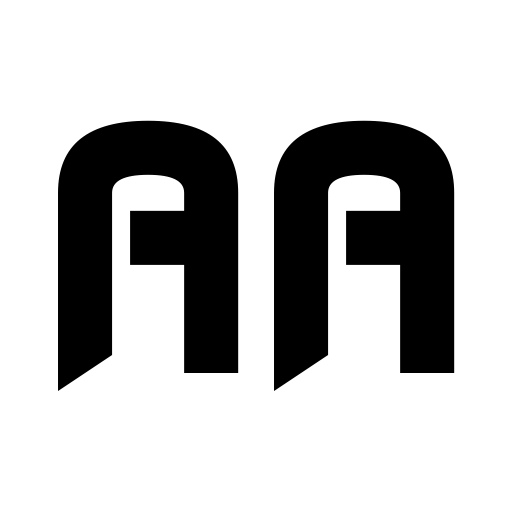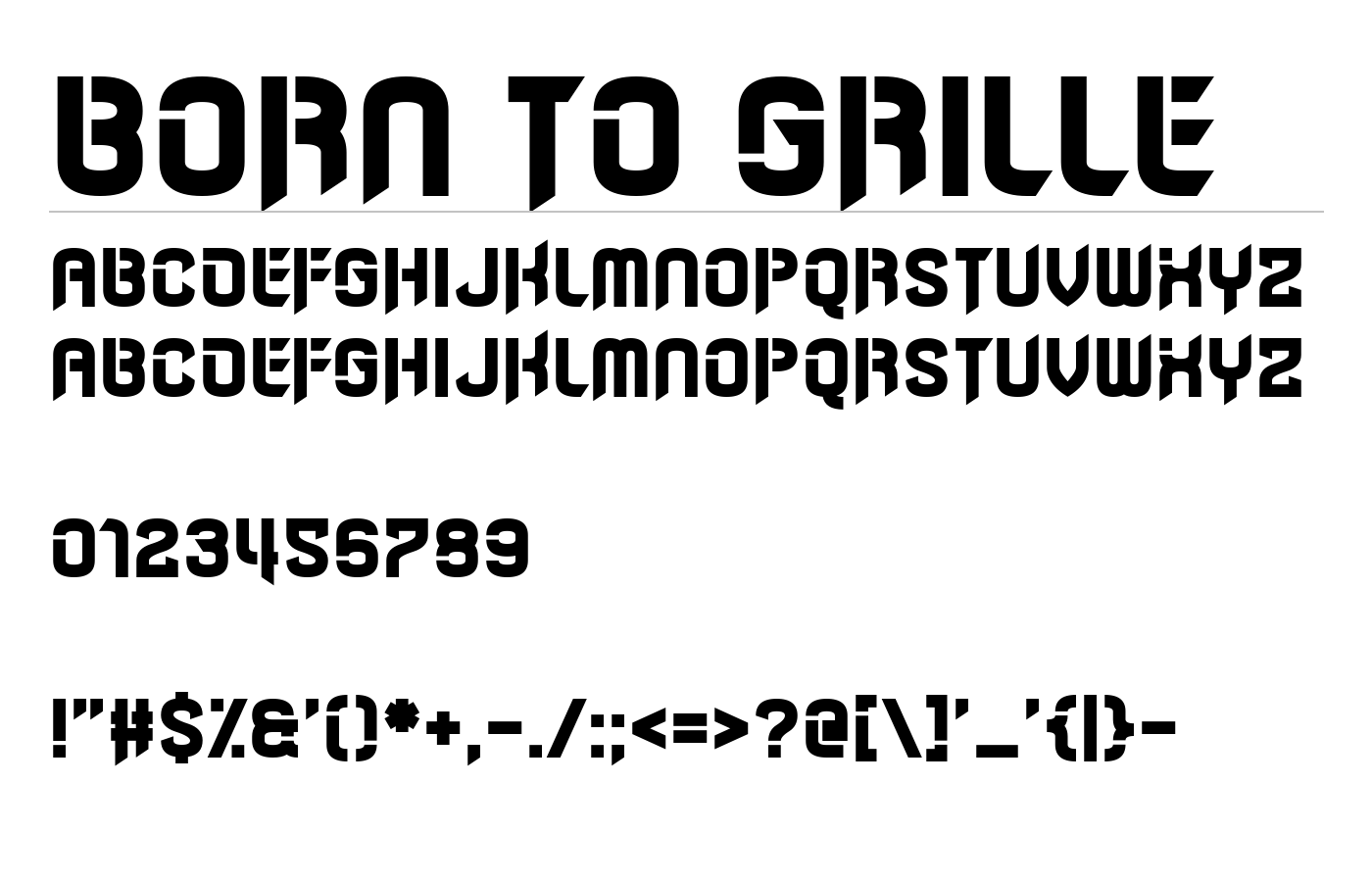
Born to Grille is a bold, condensed sans serif font with a futuristic and industrial vibe, characterized by sharp angles and distinctive cut-out details that give it a strong, edgy personality. Its uppercase-only design and high contrast shapes make it ideal for striking headlines, logos, and branding where a modern, assertive look is desired. This font works well for projects wanting to convey innovation, strength, and a forward-thinking style.
Born to Grille Font
About Born to Grille Font
| Designer | Allison James |